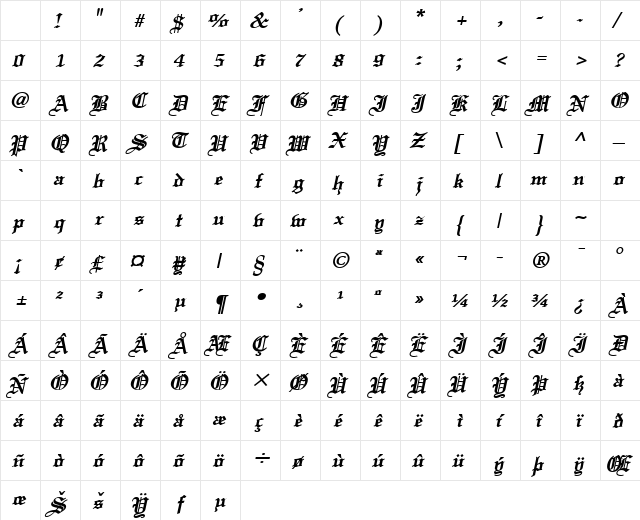
England is a composed and adaptable typeface that performs quietly and consistently across a wide range of design contexts. The slanted form adds forward momentum and visual energy. Its bold stroke weight gives it real presence on the page.
Pro Tip: Use England for emphasis, pull quotes, and subheadings where its slanted energy can add rhythm to the layout.